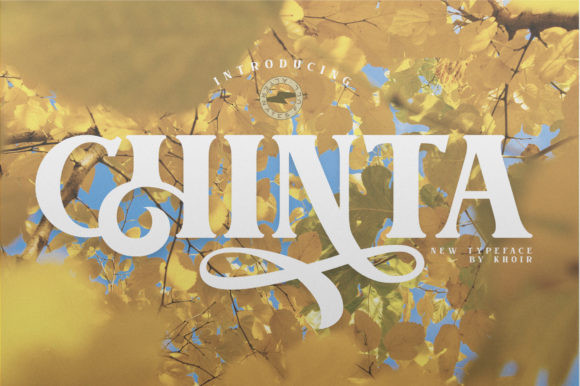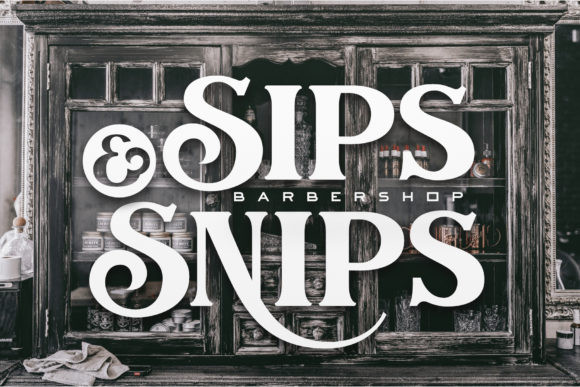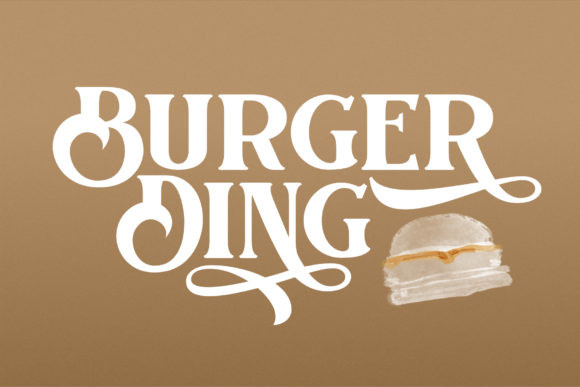
Chinta Font
Chinta is a modern serif font. It delivers a classic and sophisticated feel and amazing alternates and swashes. It will look particularly adept when used in logos, branding, packaging design, and much more. This masterfully designed typeface is a true must-have.